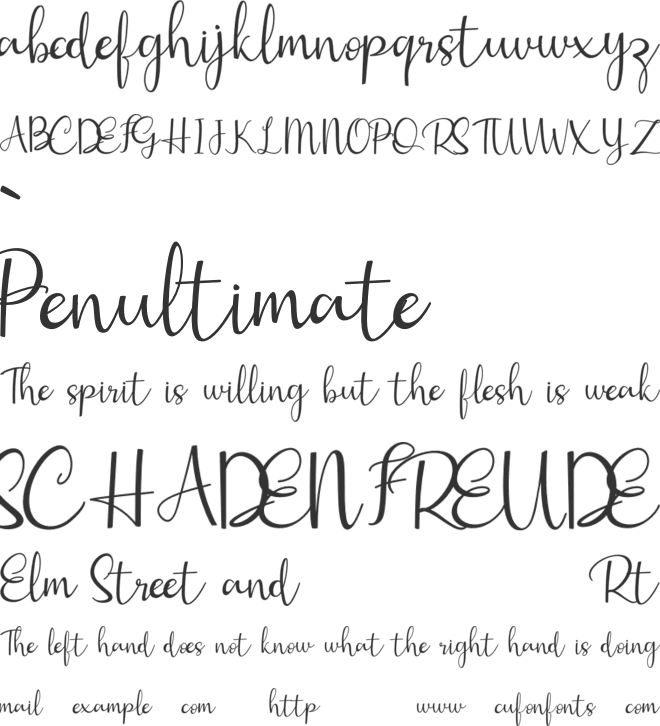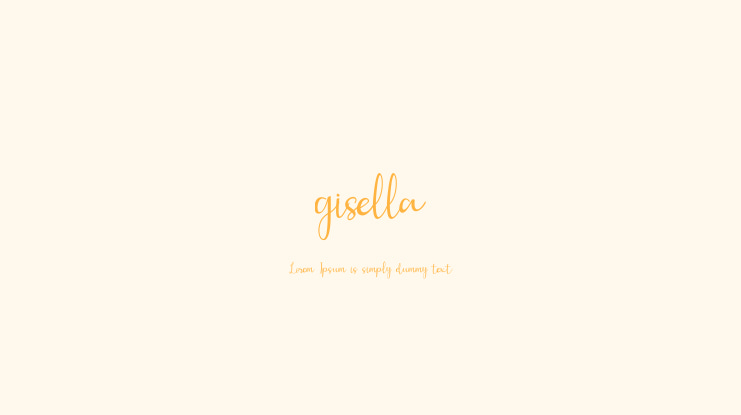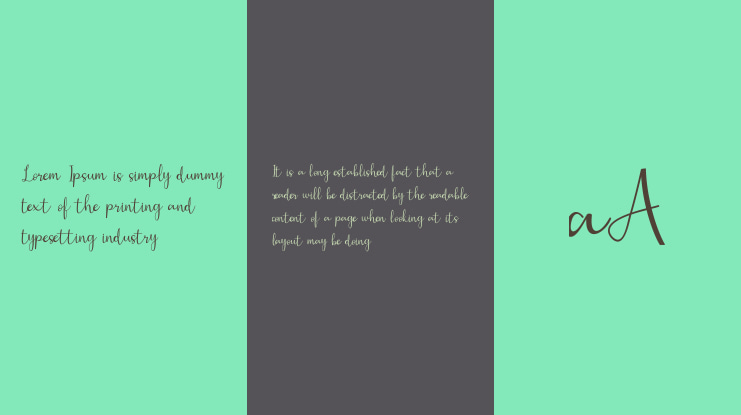
gisella Font
Gisella Font a new natural script with a handwritten and script style make this font looks elegant, natural, stylish .
Gisella Font would perfect for invitation, logos & branding , photography, advertisements, watermark, social media posts, product packaging, product designs, label, wedding designs, stationery, special events or anything that need handwriting taste.